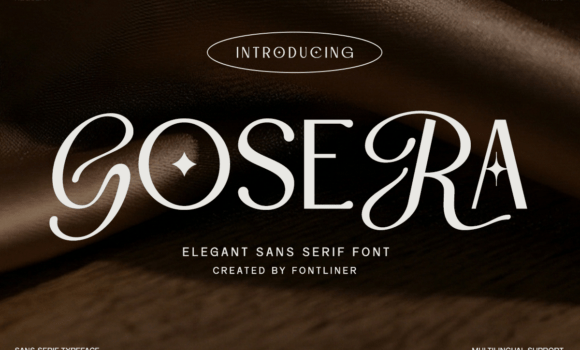
gosera
Gosera Font – Free Download Introduction to Gosera Font Gosera is an elegant sans serif font that blends modern minimalism with subtle artistic flair. 📸 Preview Gallery 6 images 📌 Product Name Gosera Font 👤 Author Font Liner 📂 Category